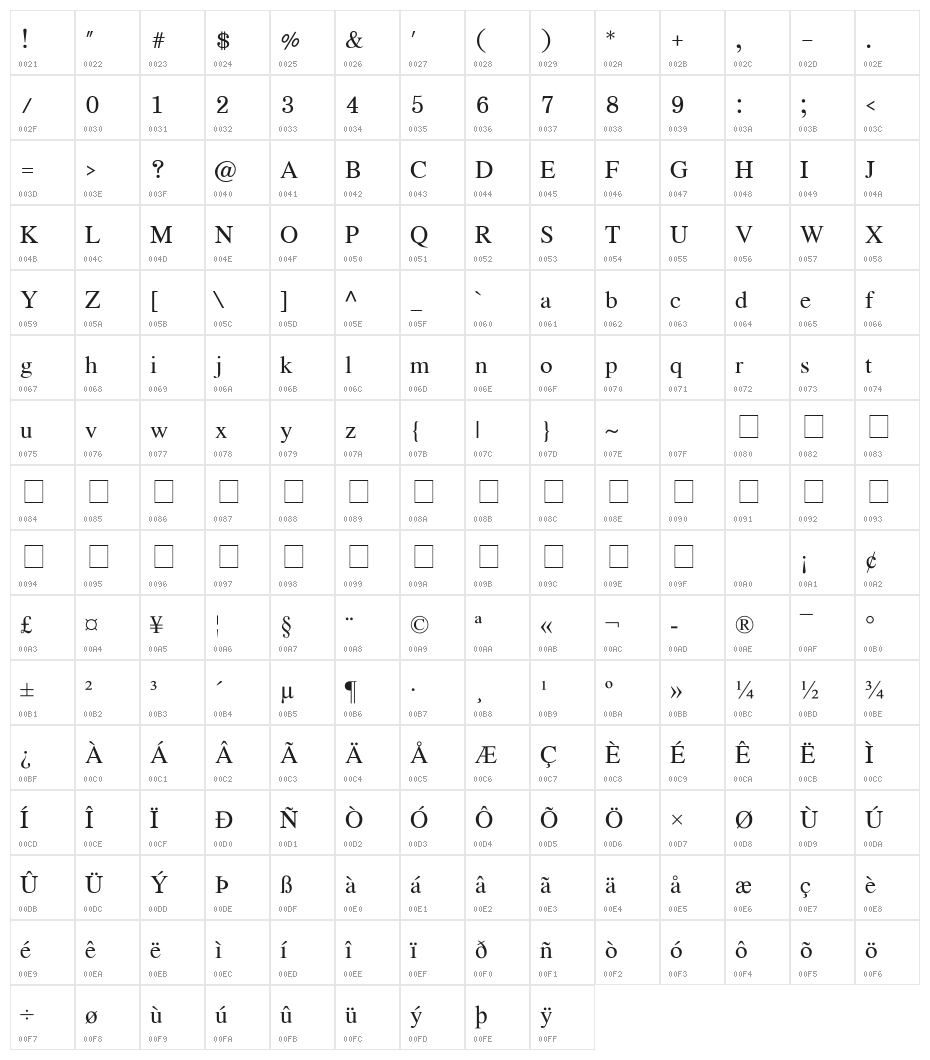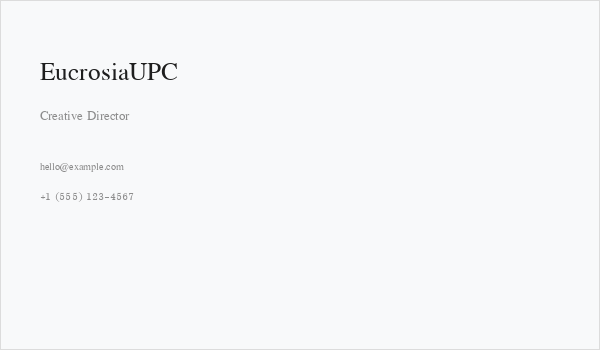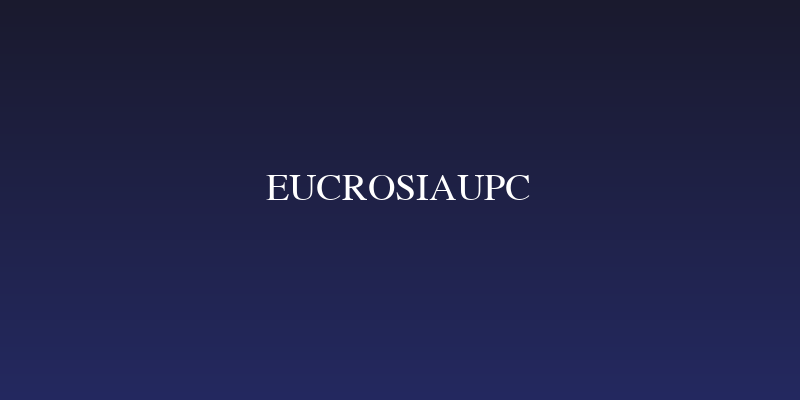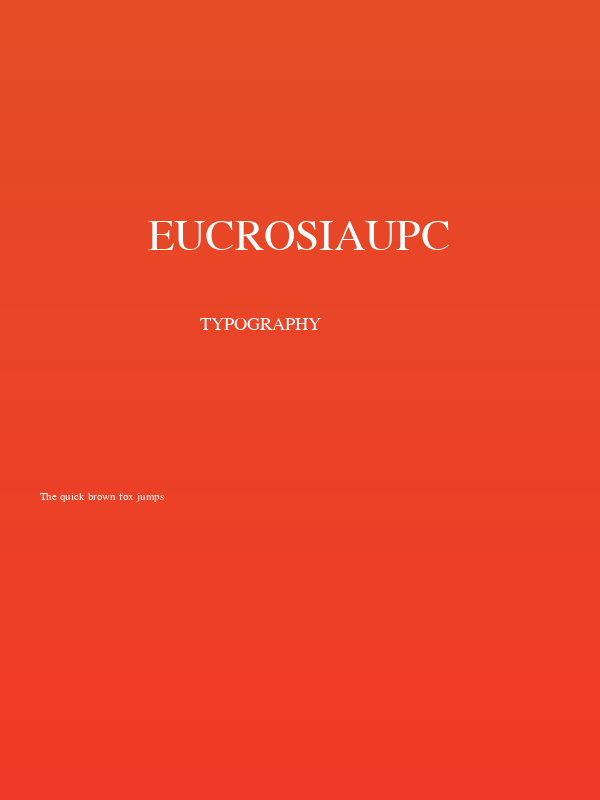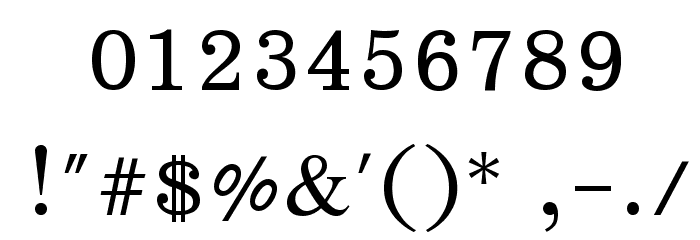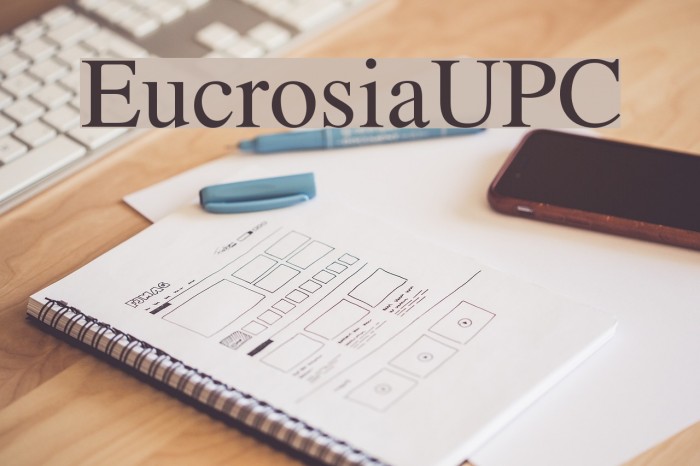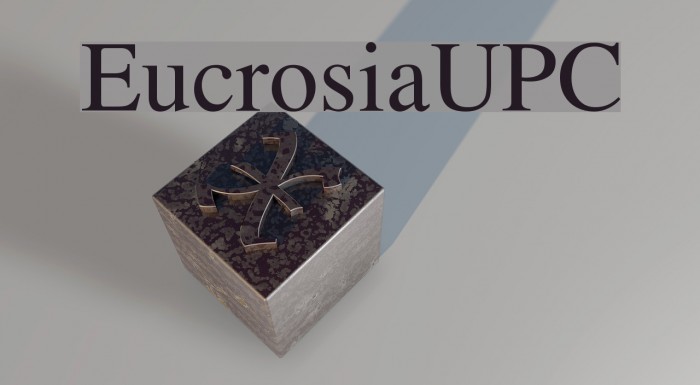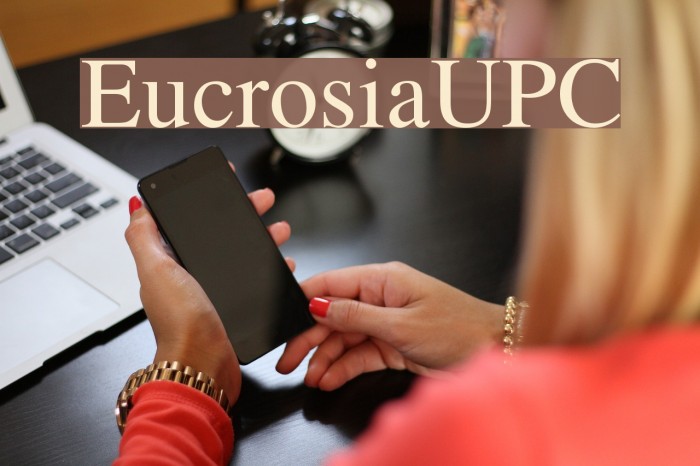
EucrosiaUPC Font
EucrosiaUPC Description
This font exhibits a classic serif style with elegant and refined strokes. The uppercase letters are bold and commanding, while the lowercase letters maintain a consistent and harmonious flow. The numerals are clear and distinct, making them easily readable. Special characters are well-defined, adding versatility to the font's usage. The overall design is balanced, with moderate contrast between thick and thin strokes, giving it a timeless and professional appearance.
| Use Case | Body text, Headlines, Editorial design |
| Proposed Projects | Ideal for formal documents, book publishing, branding, and editorial design. |